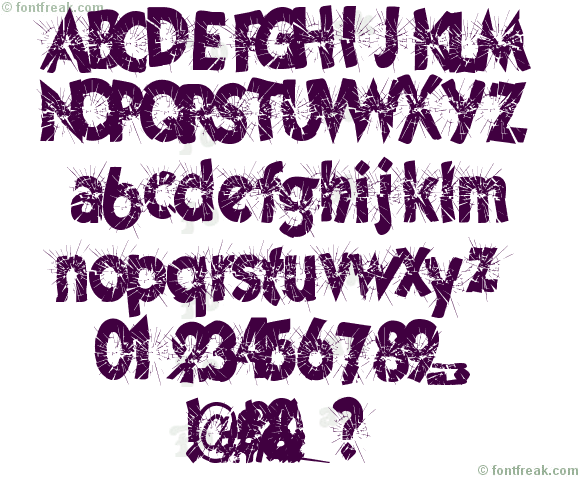
CuttingEdge
CuttingEdge font, created by XEROGRAPHER FONTS in 2012, is a striking display typeface that captures attention with its unique, edgy design. This font falls into the decorative category, characterized by its bold, rough strokes and an organic feel that evokes a sense of movement and dynamism. The visual elements of CuttingEdge are defined by uneven stroke weights and a textured finish, giving it an almost hand-crafted appearance. The spacing is thoughtfully designed to maintain readability while allowing the font's character to shine through, making it suitable for various creative applications.
This font is perfect for a range of use cases, such as eye-catching movie posters that aim to convey energy and excitement, or branding for trendy cafes and restaurants looking to stand out in a crowded market. Additionally, CuttingEdge can elevate event flyers or music festival graphics, providing a vibrant and youthful vibe. Graphic designers and content creators will find this font particularly appealing for projects that require a bold statement, as well as small business owners seeking to capture attention in a visually saturated world.
What sets CuttingEdge apart is its ability to blend artistic flair with practicality. The font manages to strike a balance between being decorative and functional, making it versatile for numerous design contexts. The fact that it is available as a freeware license encourages experimentation and creativity, allowing users to incorporate it into their projects without the burden of licensing fees. For those seeking a font that embodies innovation and uniqueness, CuttingEdge font free download is a fantastic choice, guaranteeing to enhance any design with its distinctive style.